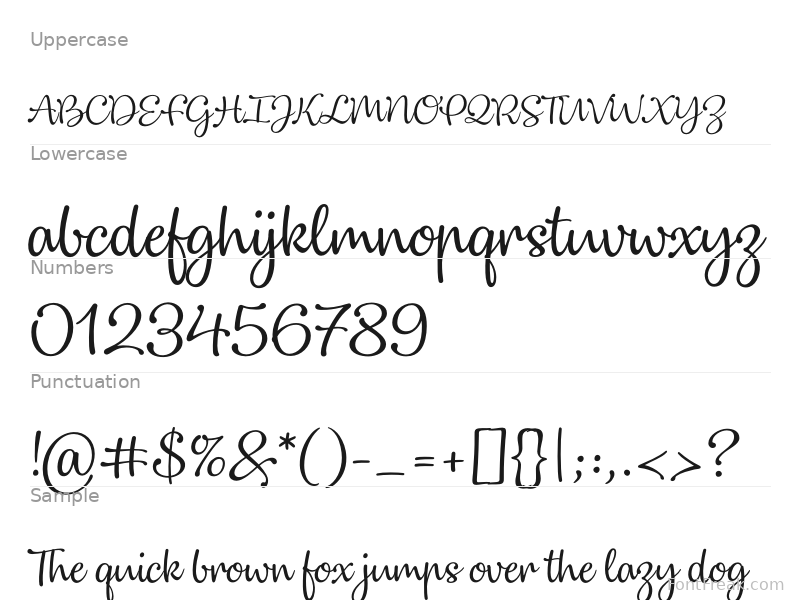
Dulcelin
Dulcelin, crafted by Youssef Habchi, is a stunning display font that falls into the script category, showcasing a fluid and elegant handwriting style. This font exudes a warm and inviting character, making it ideal for various creative applications. The visual characteristics of Dulcelin include smooth, flowing strokes with a moderate contrast that enhances its legibility while retaining a personal touch. The spacing is well-balanced, allowing for easy readability, which is essential for both digital and print media.
Dulcelin is particularly versatile, making it a perfect choice for wedding invitations, where its romantic flair can enhance the overall aesthetic. Additionally, it works beautifully for restaurant menus, adding a sophisticated yet approachable feel that can entice diners. Graphic designers may also find it suitable for branding projects, especially when creating logos or marketing materials that require a personal touch. Furthermore, content creators can utilize the Dulcelin font free download for social media graphics, ensuring their posts stand out in a crowded digital landscape.
The target audience for this font includes graphic designers, small business owners, and content creators who seek a unique and stylish typeface to elevate their projects. Its charm and elegance cater to those who want to make a memorable impression with their visual communications.
What truly sets Dulcelin apart is its harmonious blend of elegance and approachability, making it a standout choice for any creative endeavor. The flowing nature of the font captures attention while maintaining a sense of sophistication, ensuring that any project featuring Dulcelin will resonate with its audience. Whether you are designing a heartfelt invitation or a captivating marketing piece, Dulcelin is sure to leave a lasting impression.